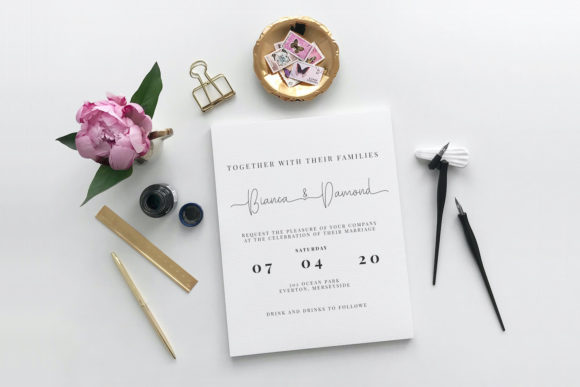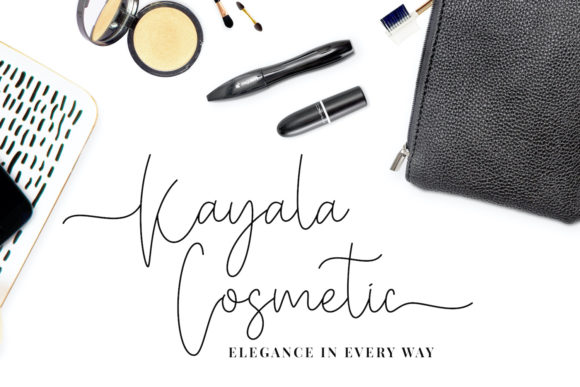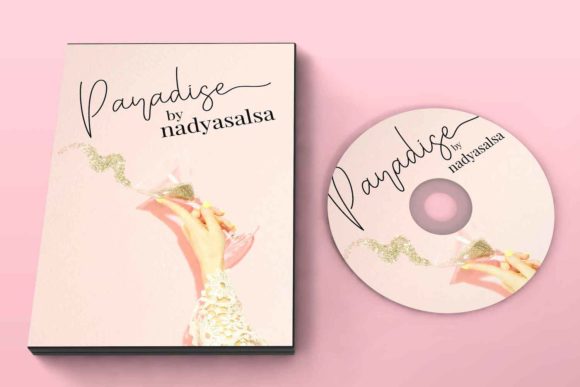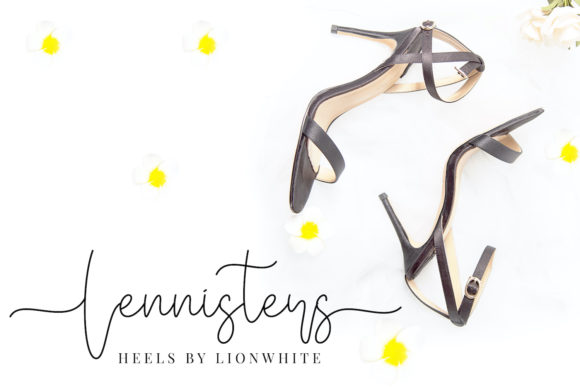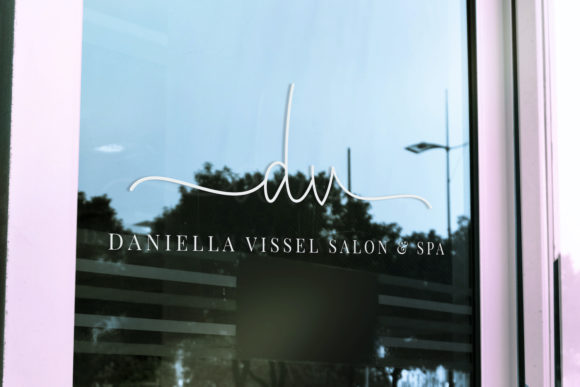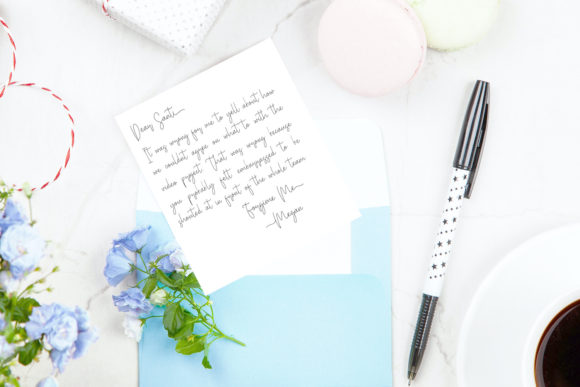
Introduction to Miya Wayne Font Font
Fonts play a crucial role in design, and the Miya Wayne Font font is a typeface that brings both character and versatility to any project. Whether you’re working on a branding project, a website, or a print design, the Miya Wayne Font font offers a unique style that can elevate your work.
Miya Wayne simplifies elegance into one truly outstanding handwritten font.
It maintains its classy calligraphic influences while feeling contemporary and fresh .
Key Features of Miya Wayne Font Font
Why Choose Miya Wayne Font Font?
The Miya Wayne Font font is more than just a typeface – it’s a design tool that helps you communicate your message with style and clarity. Its unique character set and versatile design make it suitable for a wide range of applications, from elegant invitations to bold headlines.
With its carefully crafted letterforms and balanced proportions, the Miya Wayne Font font ensures readability and visual appeal across all mediums.
What makes Miya Wayne Font font special?
The Miya Wayne Font font stands out with its unique design, exceptional readability, and versatility across various design applications.